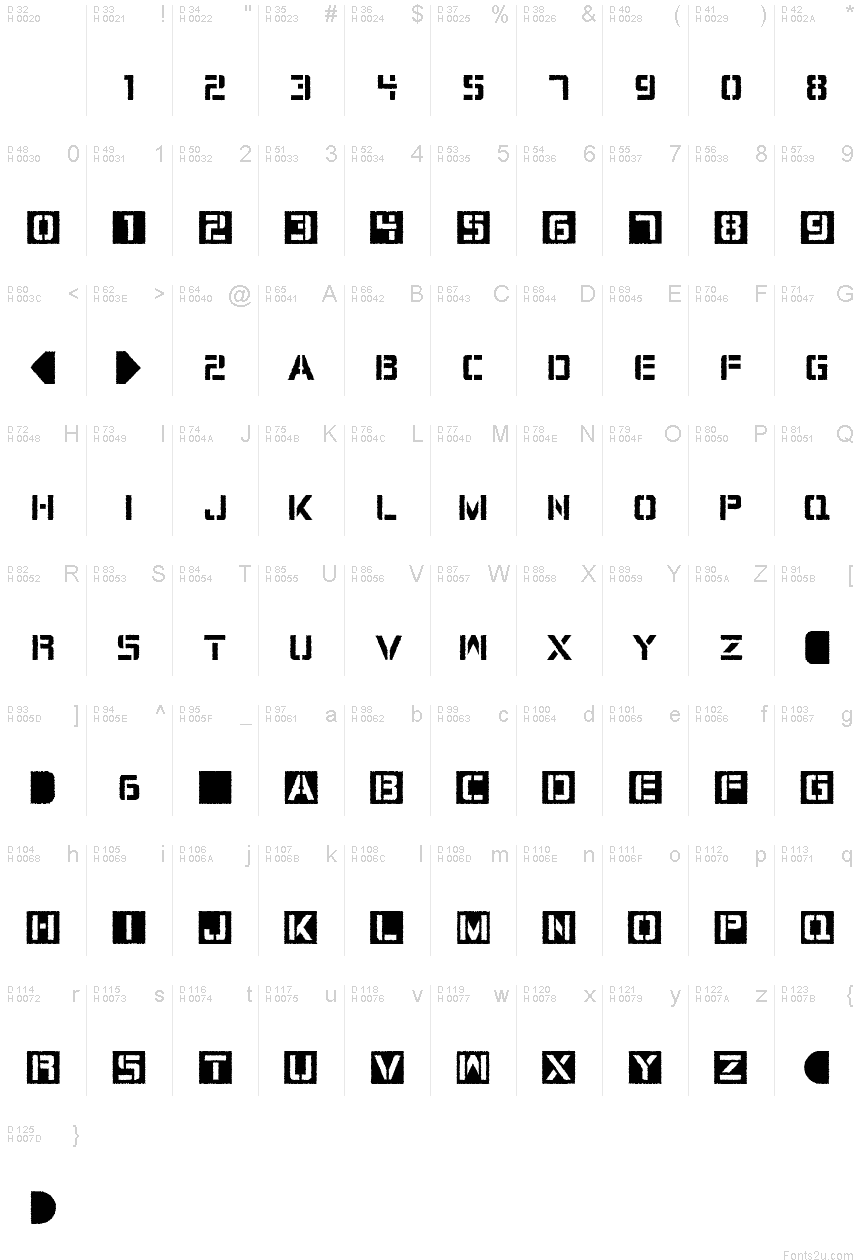
Cargo Bay is a free eroded military display font modeled on rough stenciled shipping marks. Its tall squared capitals combine broad verticals with narrow openings and sharply cut joins. Ragged edges and broken patches give the lettering a convincingly battered surface.
Crate graphics, shipping labels, and hazard symbols share its industrial vocabulary, making it useful for action-game interfaces, album packaging, and military-themed event posters. In those settings, the letters can become part of a stamped emblem or worn equipment marking rather than ordinary text.